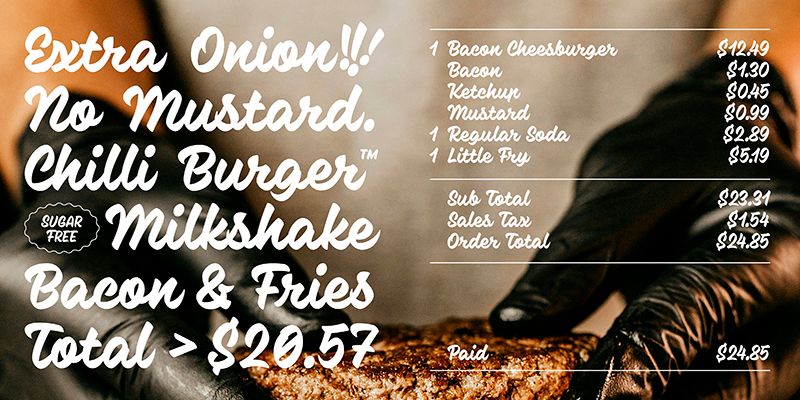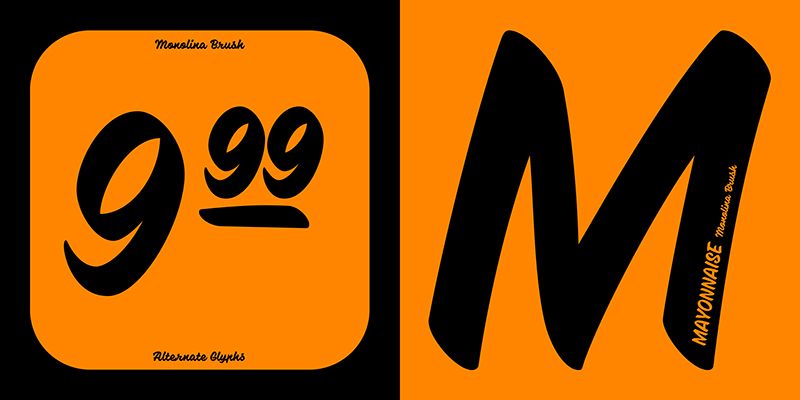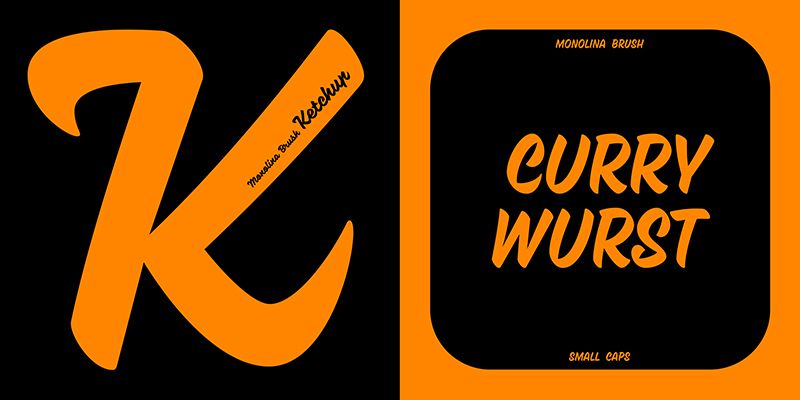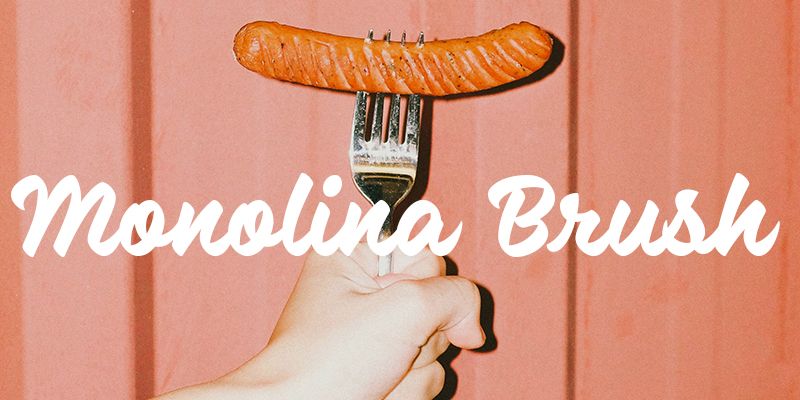
Monolina Brush is a brush-inspired extension of original Monolina script typeface, that offers a bold and expressive alternative. Perfect for adding a touch of sign painting feel to your projects!
The aim was to further develop the linear skeleton’s potential by applying different writing tool strokes. The Monolina Brush got a significant facelift. It aims to simulate writing with a brush, whose tip leads to a point at the exit strokes of the curves, as seen in the lowercase and swash shapes of the uppercase. The fictitious character of the wet brush also gives the characters a slight bend in the stems and rounder tops and bottoms. To make the connections and joints between characters work well, I redrew a few shapes and added a few contextual substitution lines. All diacritical marks, punctuation and other symbols, so as are the new small capitals, are updated for impeccable typesetting.